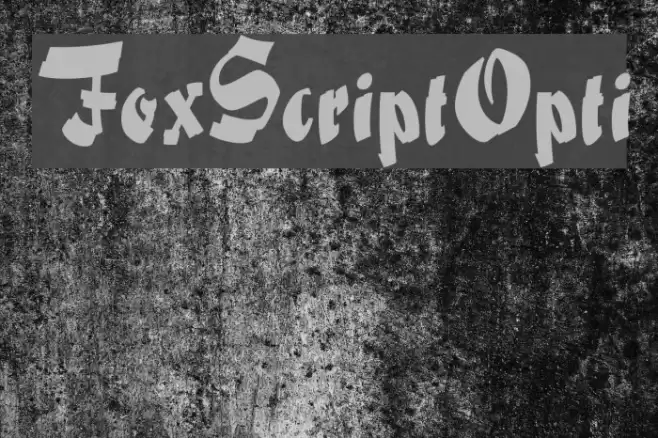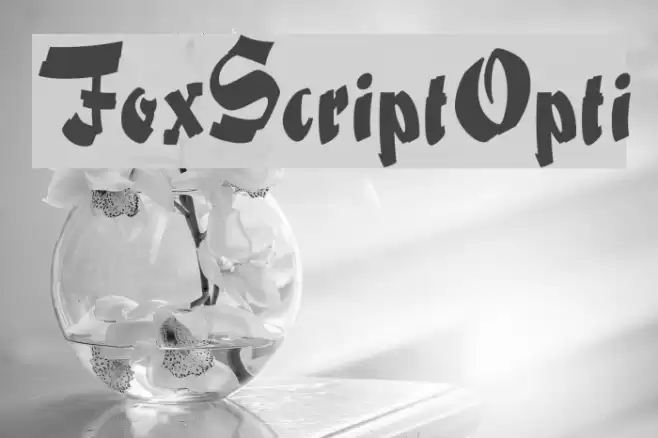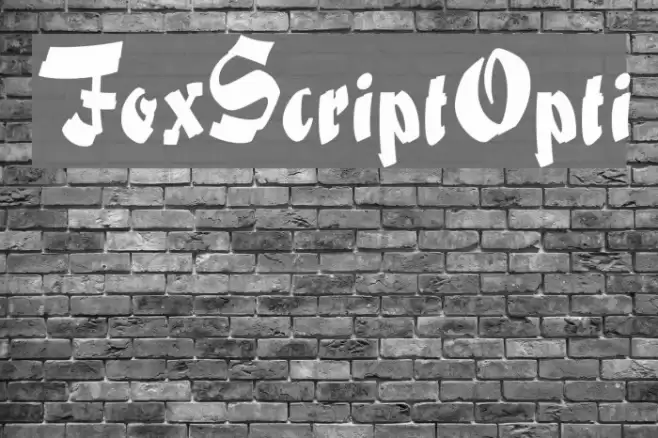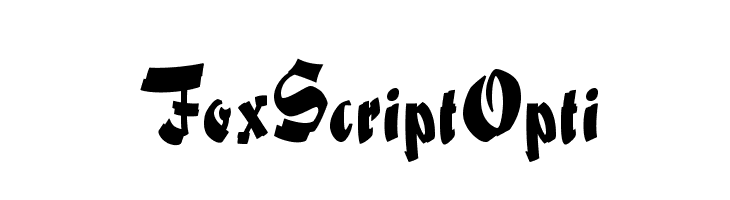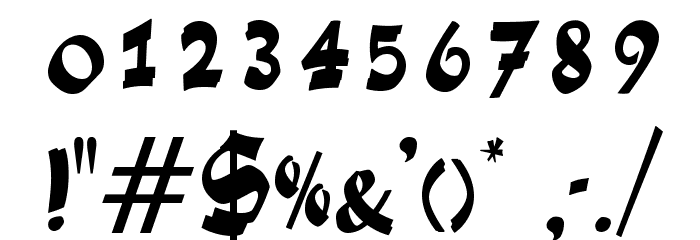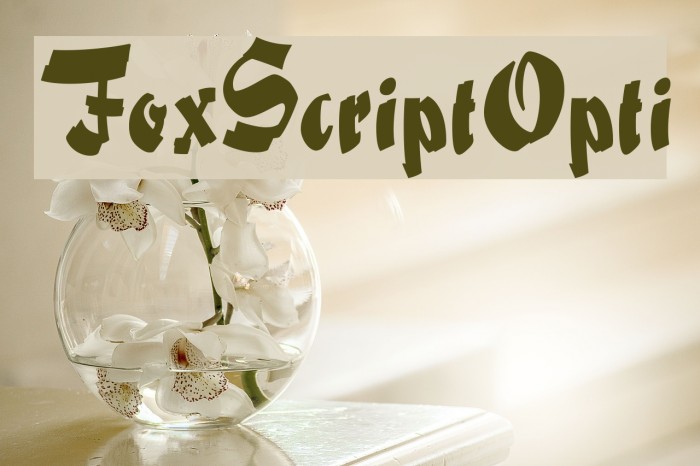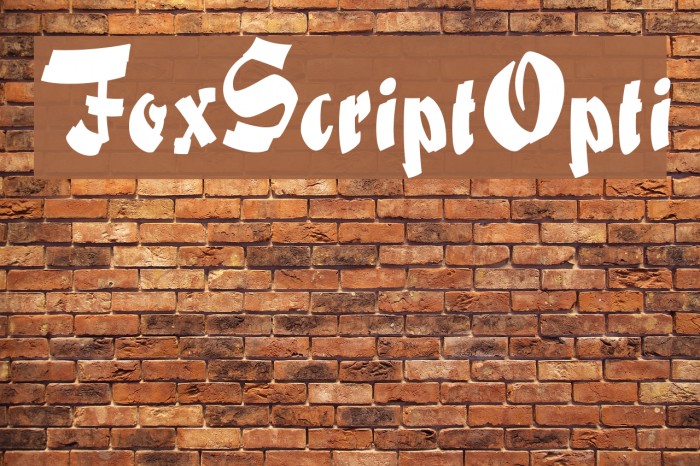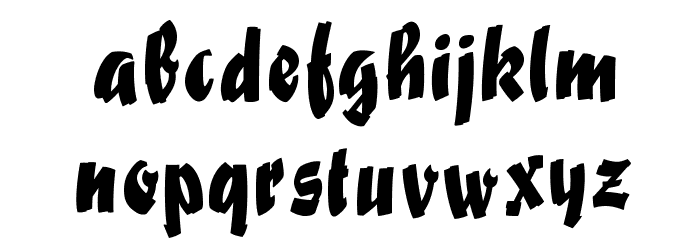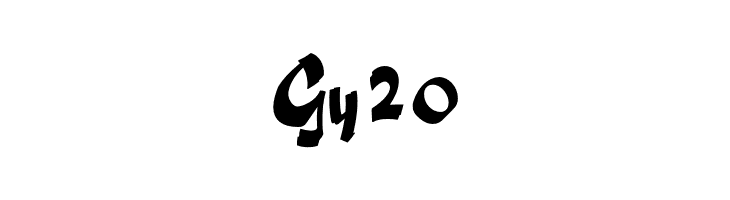
FoxScriptOpti Font
FoxScriptOpti Description
This font features a bold and dynamic script style with a strong presence. The characters exhibit a calligraphic flair, with thick strokes and sharp angles that create a sense of movement and energy. The uppercase letters are particularly striking, with a gothic influence that adds a dramatic touch. Lowercase letters maintain the same boldness, ensuring consistency across the typeface. The numerals are equally robust, designed to stand out with their unique forms. Special characters are crafted with the same attention to detail, making them an integral part of the font's overall aesthetic.
A bold, dynamic script font with a gothic flair and strong presence from Uncategorized fonts.
- Proposed Projects: Ideal for branding, posters, headlines, and any project requiring a dramatic and eye-catching typeface.